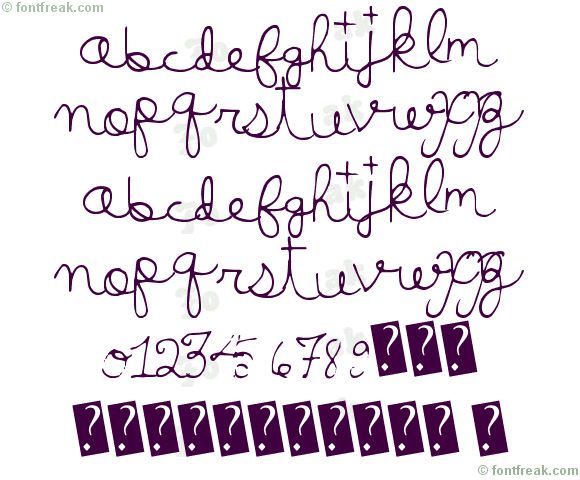
LuckyMoney
About LuckyMoney
LuckyMoney by Xerographer Fonts is a delightful handwritten typeface that radiates a sense of whimsy and charm. Its playful strokes and casual elegance make it an ideal choice for a variety of creative projects. The font features a medium stroke weight with subtle variations that add character without compromising readability. The letters are well-spaced, allowing for clear visibility and a friendly aesthetic. Its unique, looped elements and gentle curves provide a handcrafted feel that engages viewers and draws them in.
This font is particularly well-suited for applications such as wedding invitations, where its romantic flair can add a personal touch. Additionally, it works beautifully for greeting cards, helping to convey heartfelt messages with a sense of warmth. LuckyMoney also shines in restaurant menus, where its casual vibe can make patrons feel welcome and at ease. For content creators looking to add a bit of fun to their social media posts, this font can elevate visuals and engage audiences effectively. Graphic designers will find it a versatile tool for various creative projects, from branding to advertising, where a touch of playfulness is desired.
What sets LuckyMoney apart is its ability to evoke a sense of joy and lightheartedness, making it a standout choice in the realm of handwritten fonts. Its unique characteristics allow it to adapt seamlessly across various mediums, ensuring that it will enhance any project it graces.